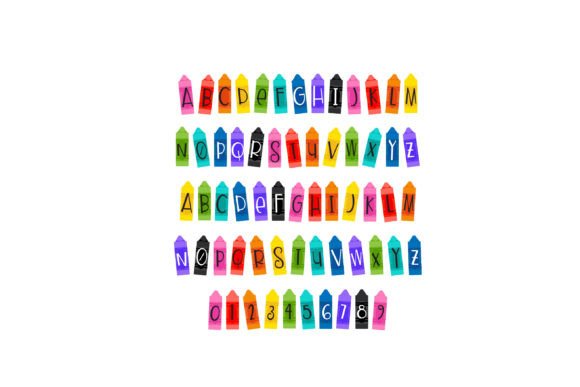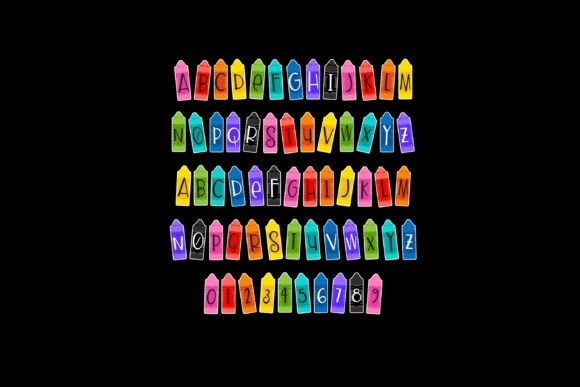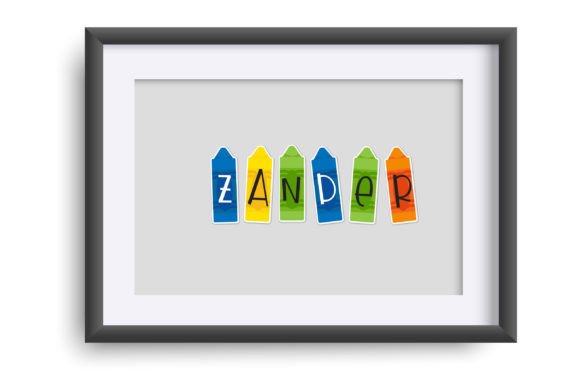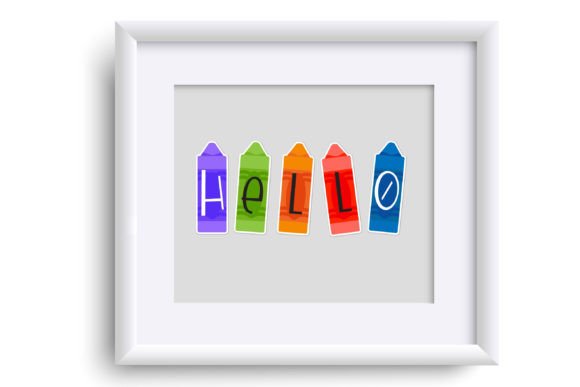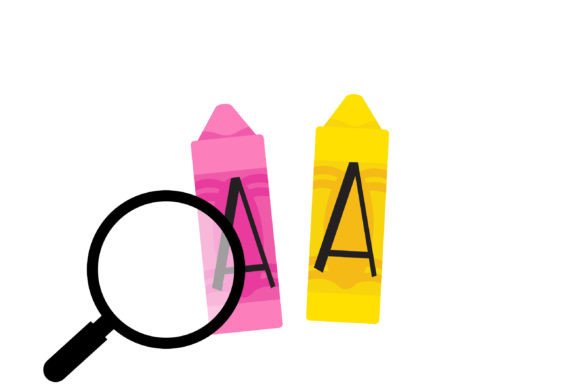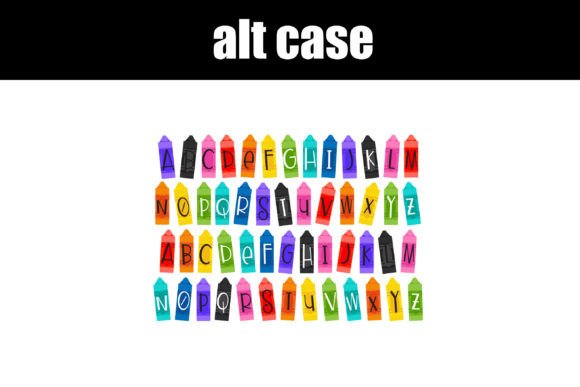
Get Crayons Font: Add a Pop of Color to Your Designs
Are you tired of using the same old boring fonts in your designs? Look no further! The Get Crayons Font is here to add a touch of personality to your creations. This full-color font features whimsical sans serif lettering on little crayons, perfect for crafters, designers, and anyone looking to add a splash of color to their work.
What is Get Crayons Font?
The Get Crayons Font is an OpenType full-color (SVG) font that features colorful, crayon-inspired lettering. Each letter is designed to look like it’s written on a little crayon, complete with bright, bold colors and a playful sans serif style. But what really sets this font apart is its versatility – with an alt version of each letter in a different color, you can mix and match to create unique and eye-catching designs.
The Benefits of Full-Color SVG Fonts
Full-color SVG fonts like Get Crayons offer a range of benefits for designers and crafters. For one, they provide a unique and eye-catching way to add personality to your designs. Whether you’re creating a logo, a poster, or a social media graphic, a full-color font can help your work stand out from the crowd.
Another benefit of full-color SVG fonts is their flexibility. With a range of colors and styles to choose from, you can customize your design to suit your brand or personal style. Plus, because they’re vector-based, you can scale them up or down without losing any quality.
Design Ideas with Get Crayons Font
So, what can you create with the Get Crayons Font? The possibilities are endless, but here are a few ideas to get you started:
• Simple text logos with a pop of color
• Complex illustrations featuring colorful text
• Eye-catching posters and flyers
• Whimsical social media graphics
• Custom party invitations and decorations
Here are a few tips and tricks to help you get the most out of the Get Crayons Font:
• Experiment with different color combinations to find the perfect look for your design
• Use the alt versions of each letter to create unique and interesting effects
• Don’t be afraid to mix and match with other fonts and design elements
• Take advantage of the font’s vector nature to create scalable designs
The Get Crayons Font is a fun and versatile full-color font that’s perfect for designers, crafters, and anyone looking to add a touch of personality to their work. With its whimsical sans serif lettering and range of colors and styles, it’s the perfect way to add a pop of color to your designs. So why not give it a try and see what creative possibilities you can come up with?